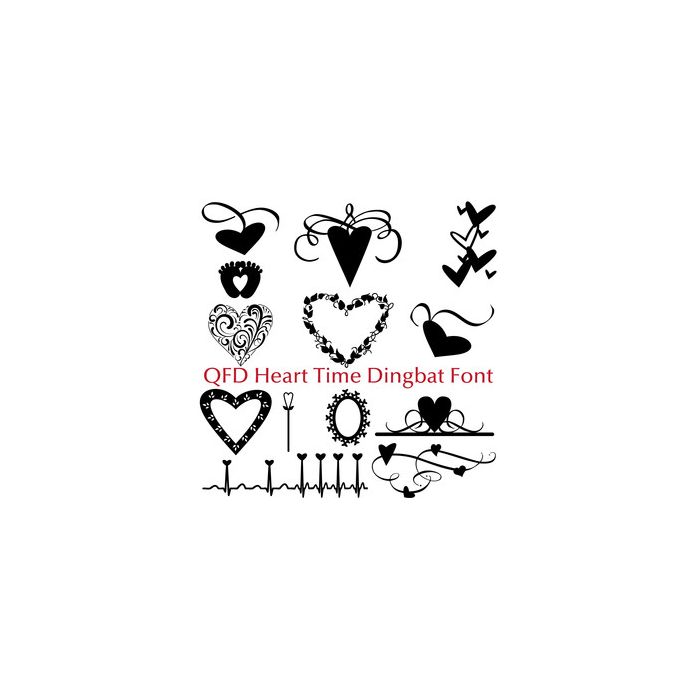
qfd heart time dingbat font
There are lots of hearts in here perfect for your creative endeavours! If you have any questions, please feel free to contact me!